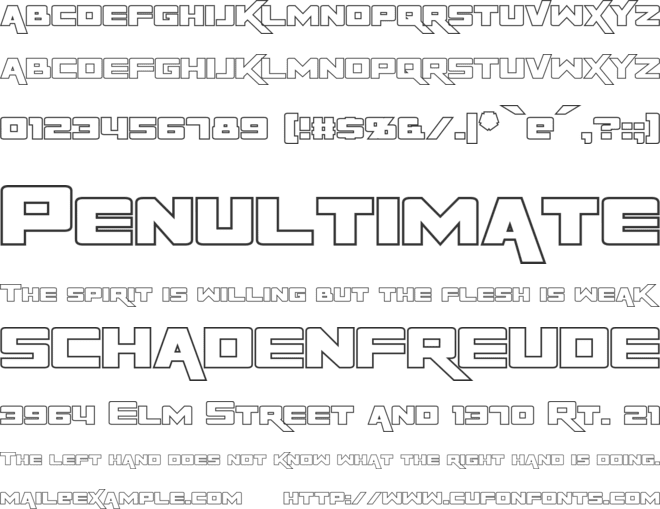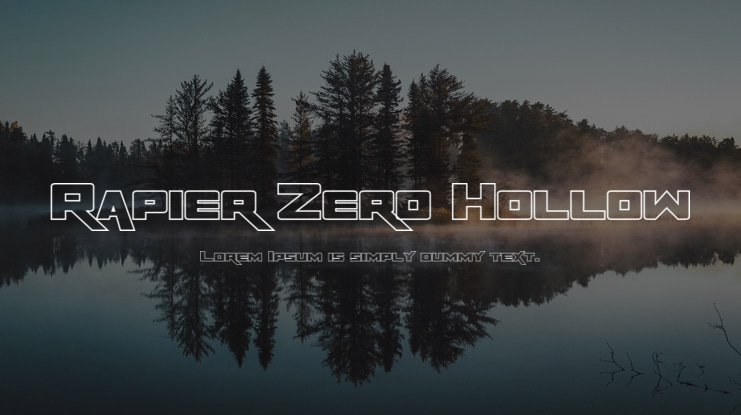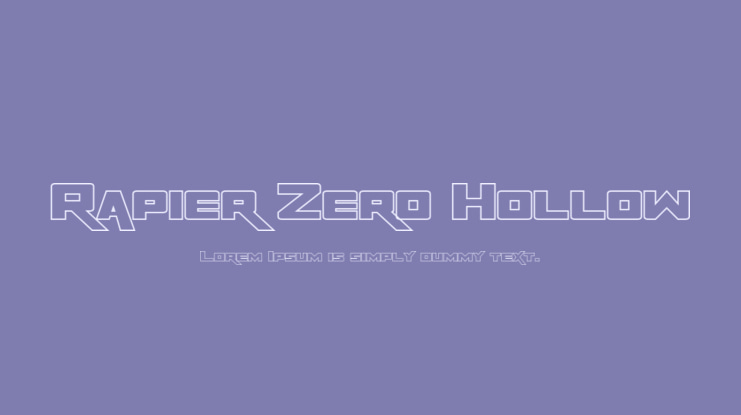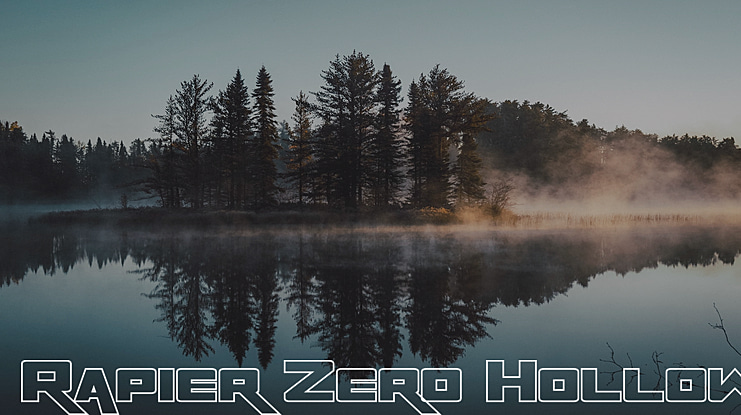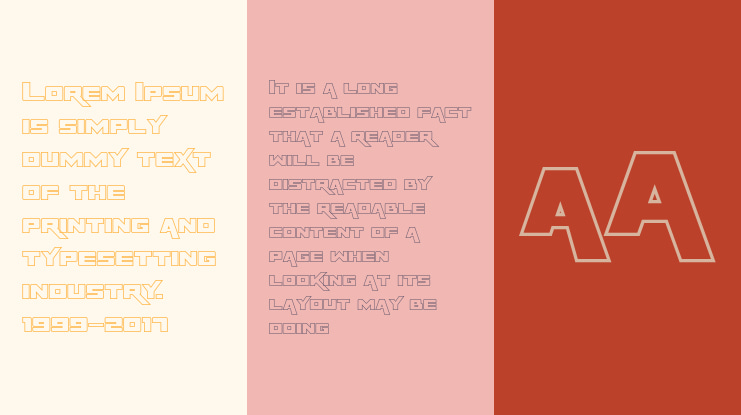
Rapier Zero Hollow Font Family
Neale Davidson
This typeface is a bit of nostalgia, based on the title logo of the very first of R Talsorian's "Mekton" gaming books. Includes full alphabet, extended characters, punctuation, Euro. Includes italic and outline versions.